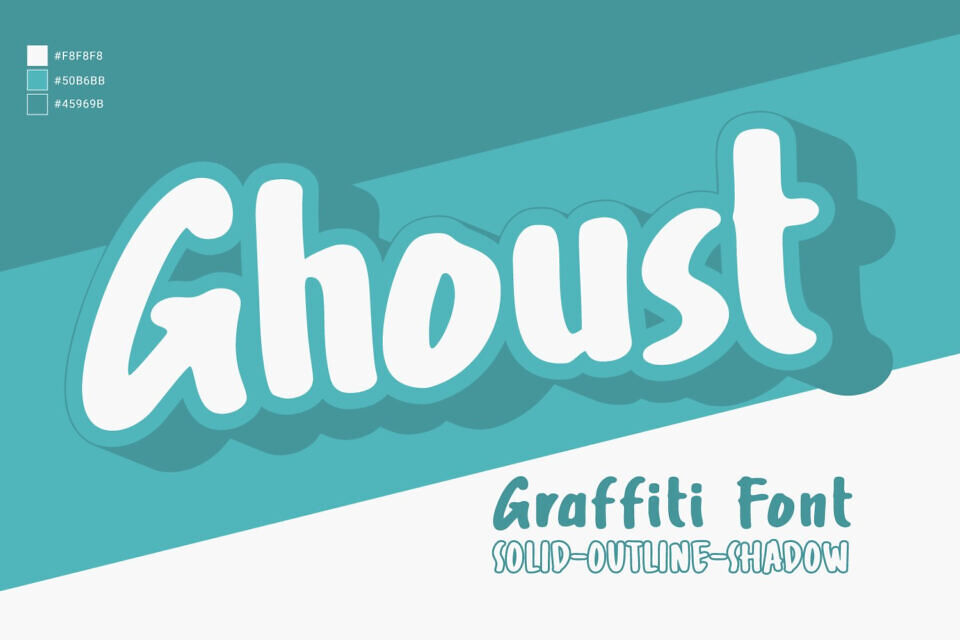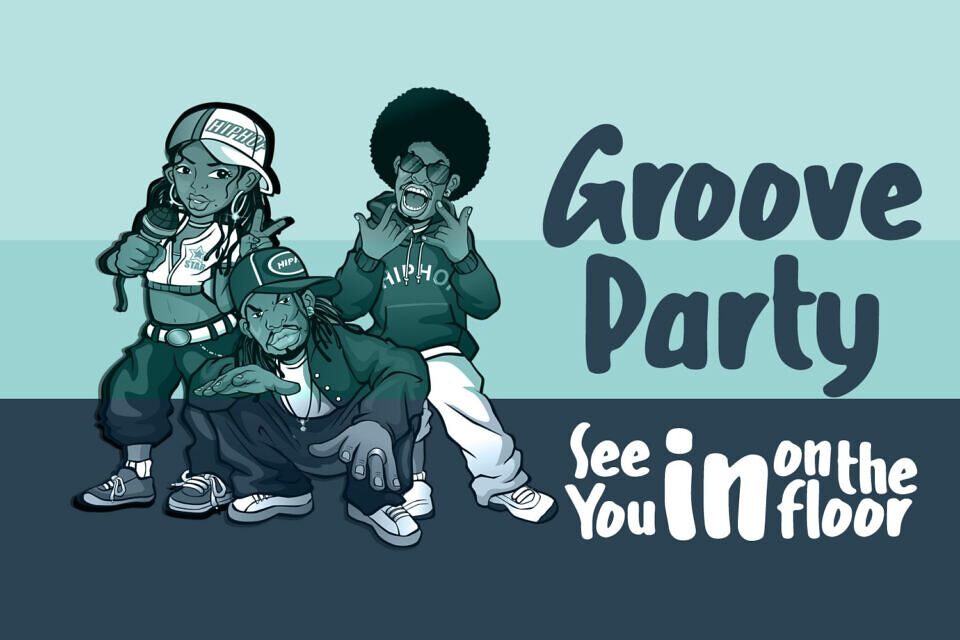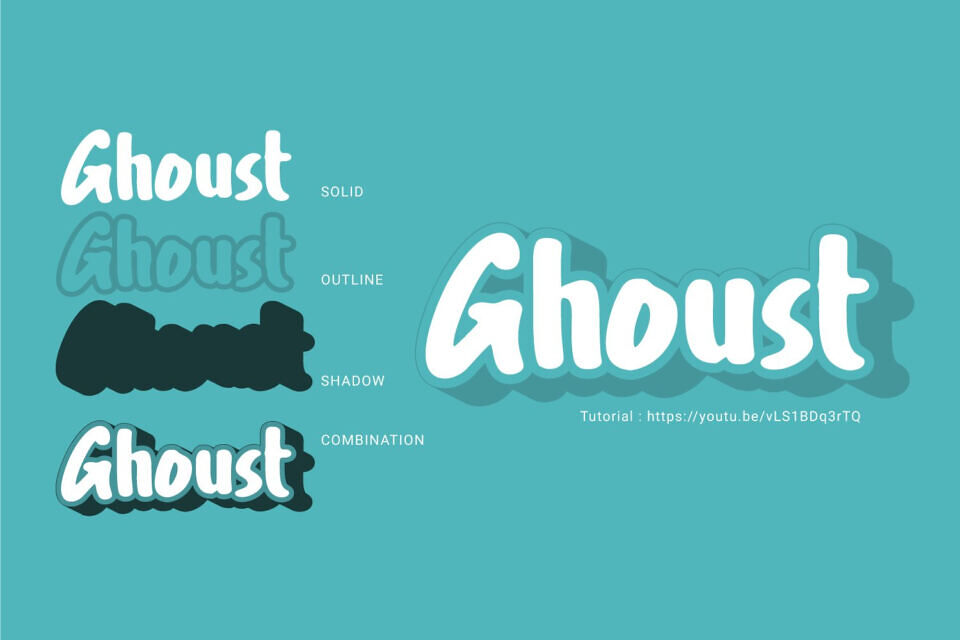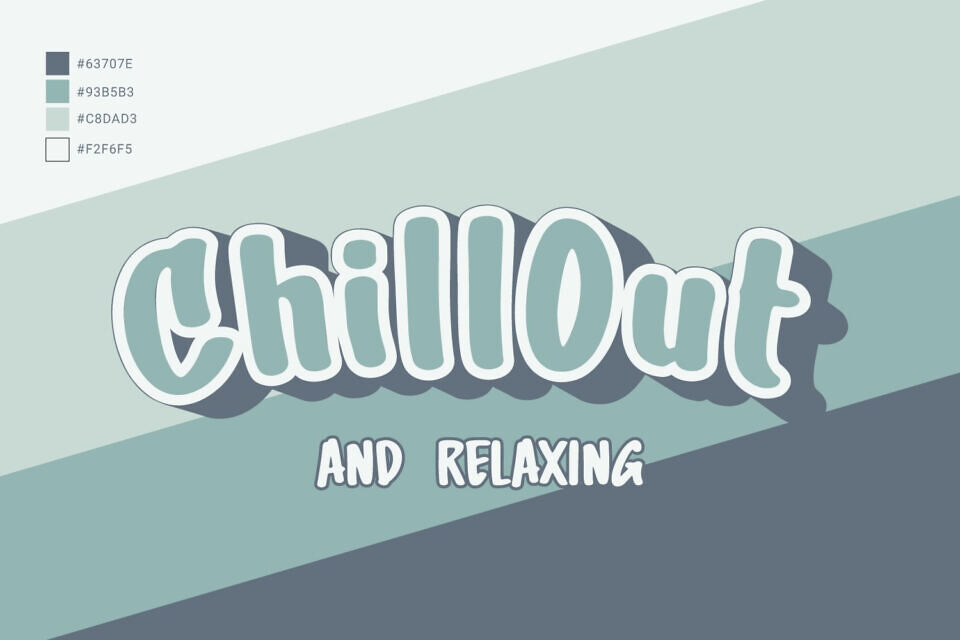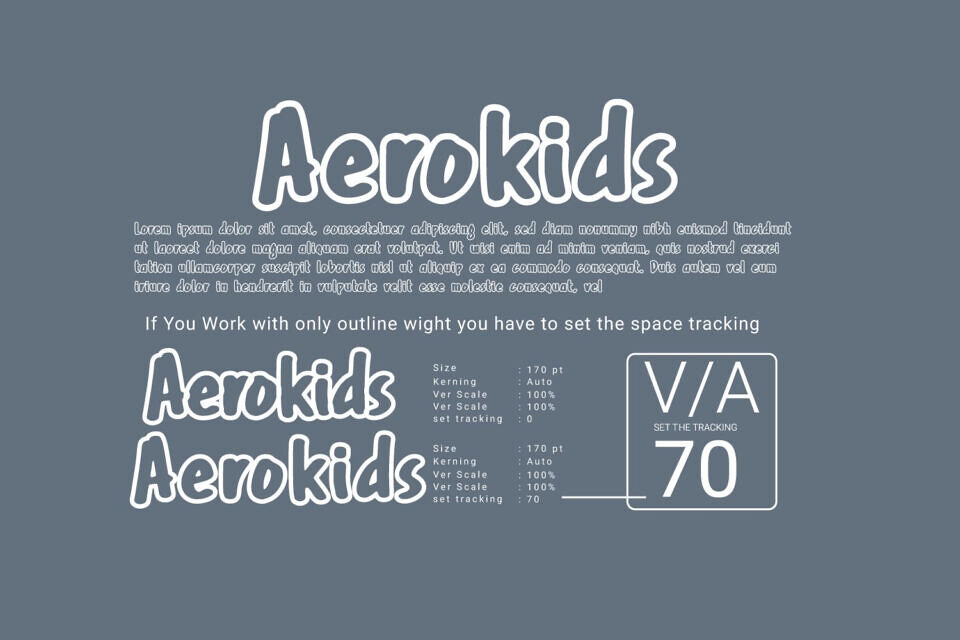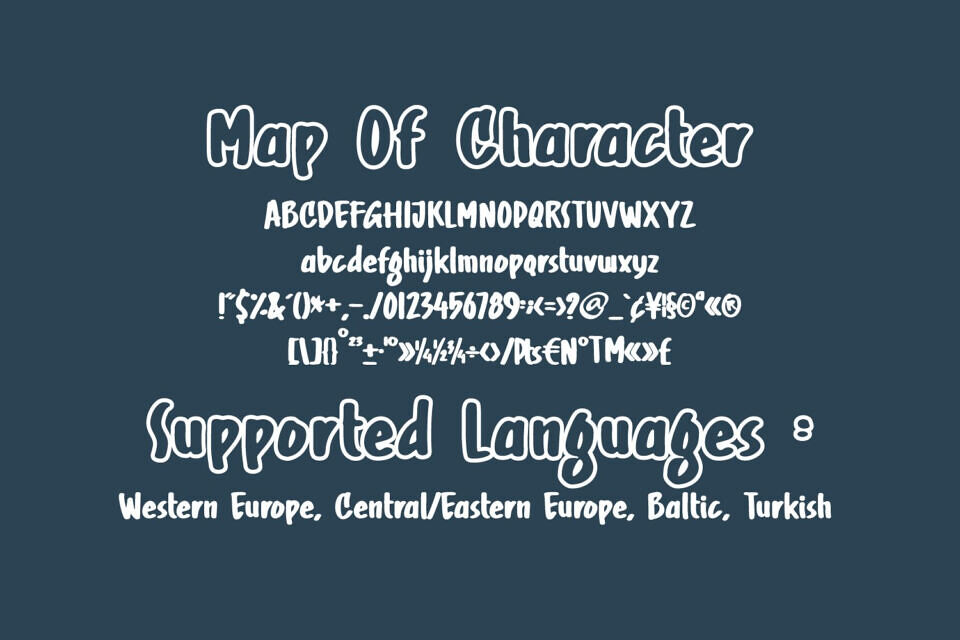
Ghoust is a graffiti style handwritten font. It includes three variations to give you the ultimate package: Solid Regular, Outline and Shadow. You can mix these three styles to create an authentic graffiti look.
The Solid version has revised kerning to be used as single layer text, working well for crafting designs.
If you use the Outline version you have to set glyph tracking. We make tutorial for this setting:
This makes a great addition to your collection of handwriting and display fonts. You can use it for posters, celebration, fun events and cute crafts.